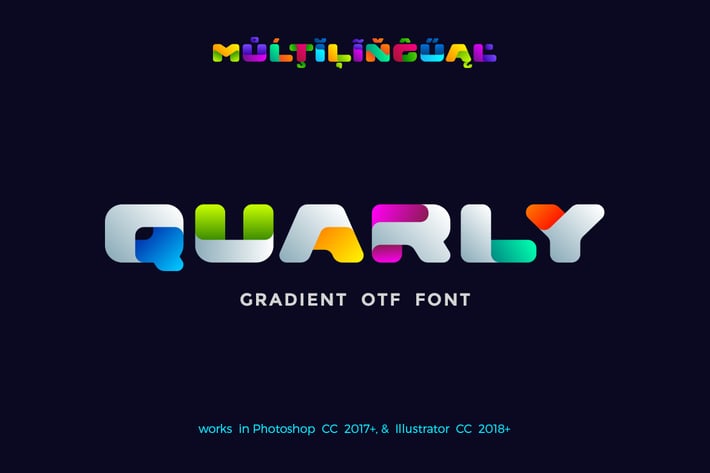
Quarly Color Font
Quarly is friendly innovative creative font can be used as logo design and branding, games & apps, headlines, posters & banners in such areas as Entertainment, Technology, Promo Ads, Food etc.
You may play with letters changing theirs colors, position, rotation to make new and interesting font combinations.